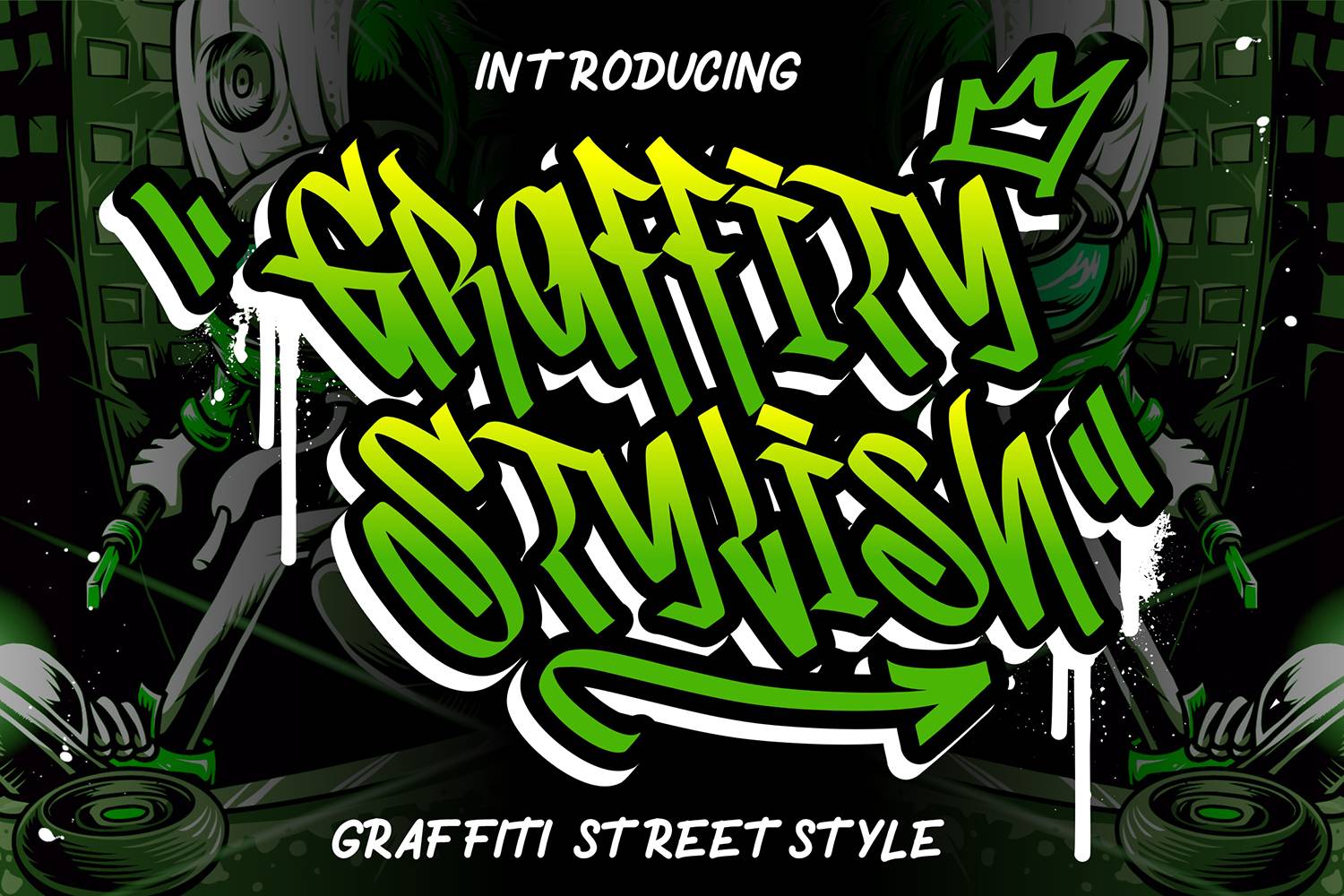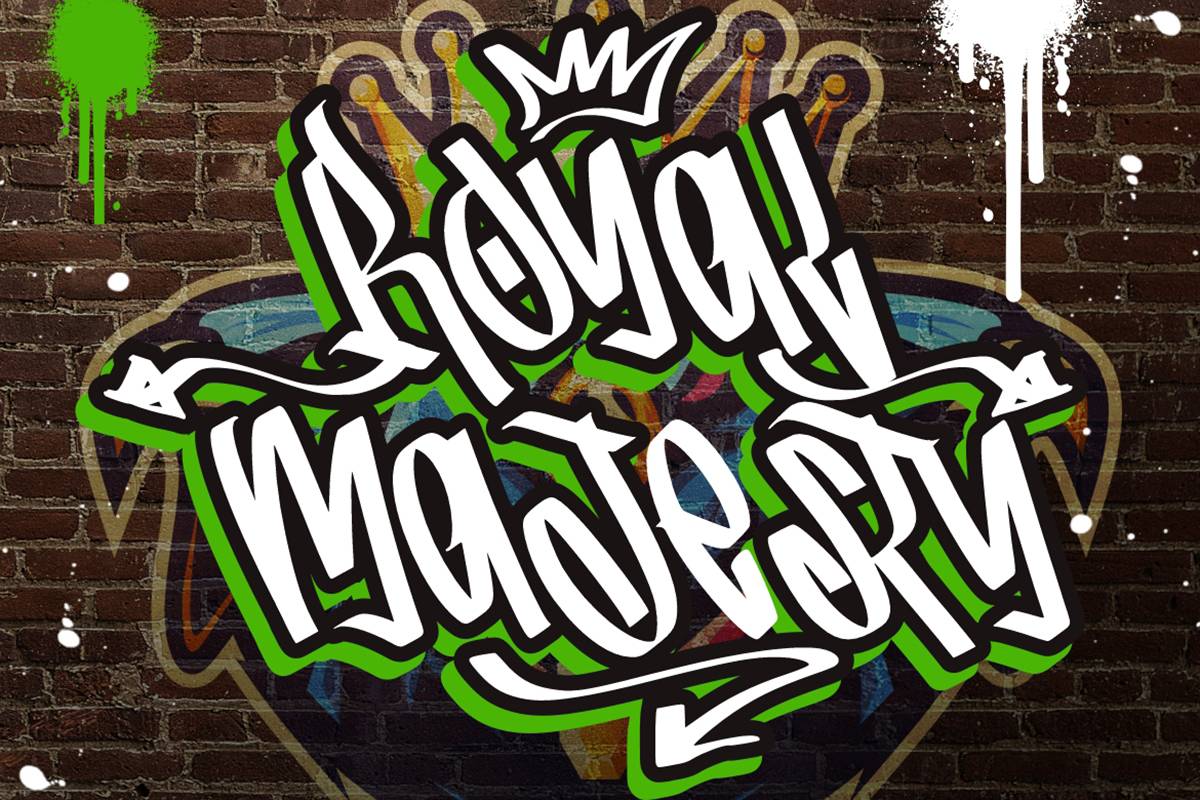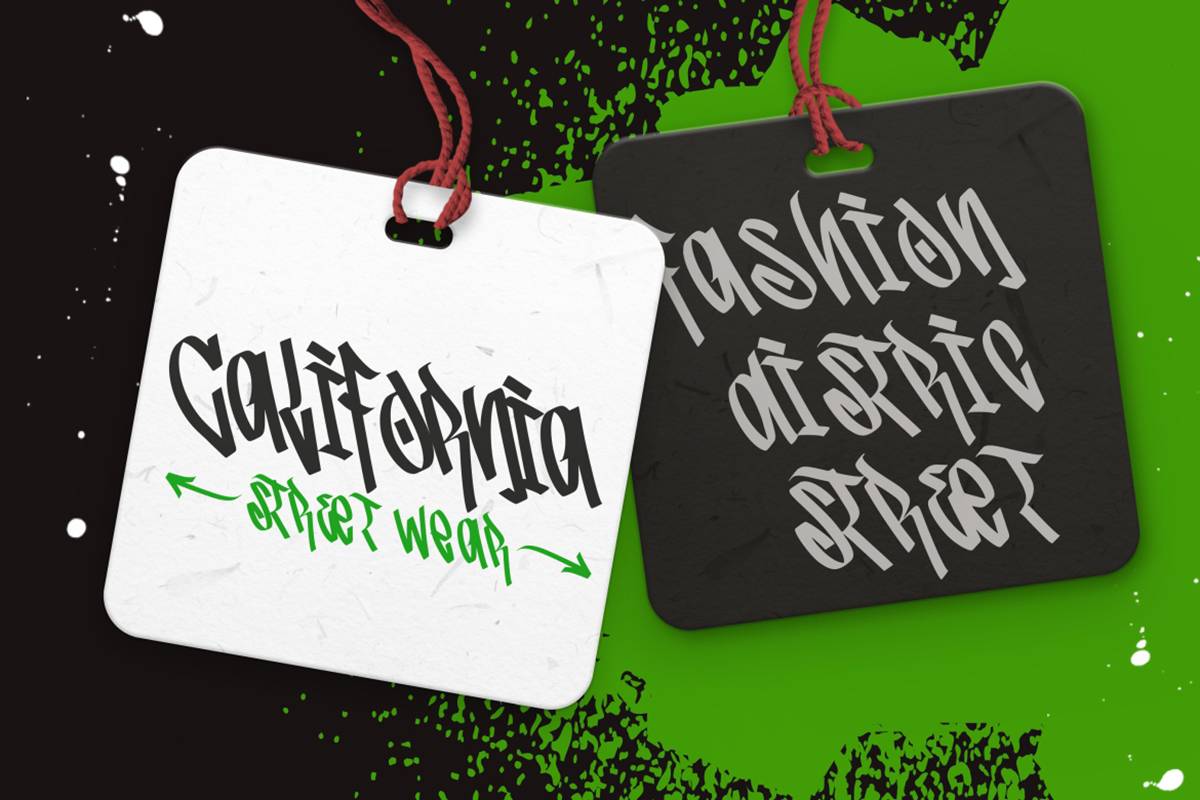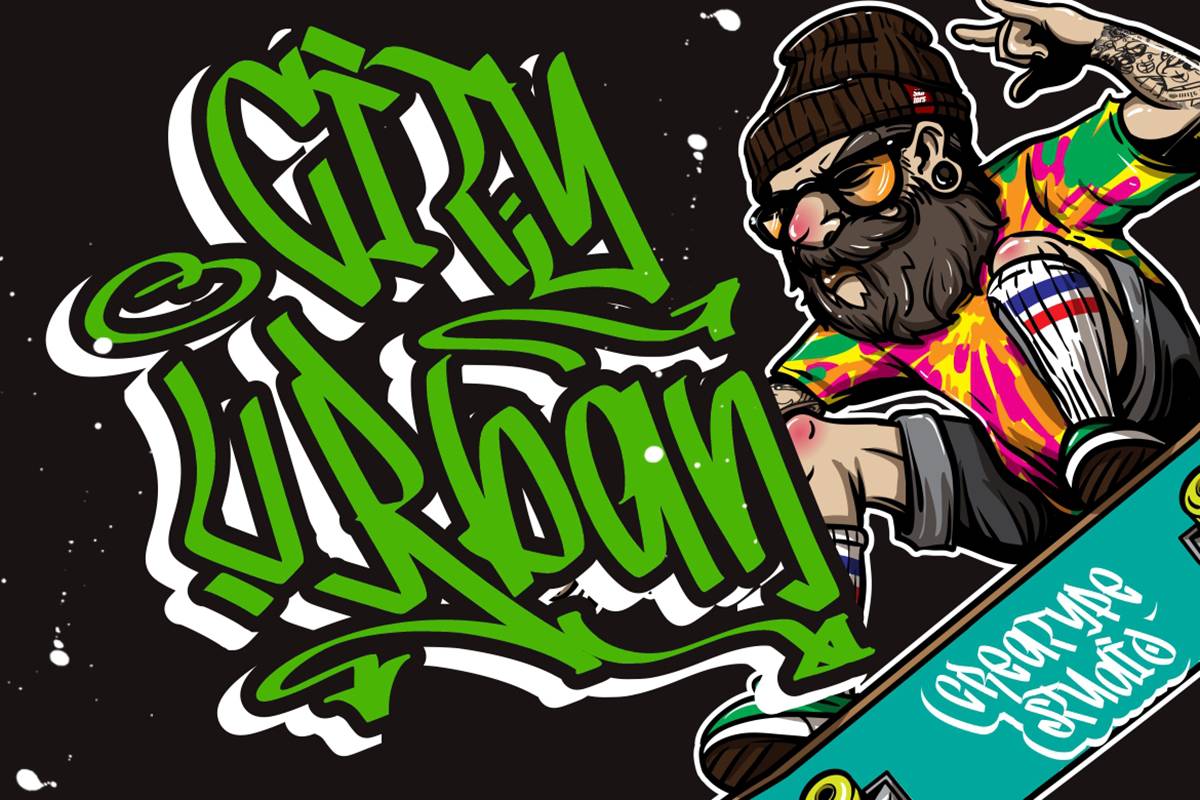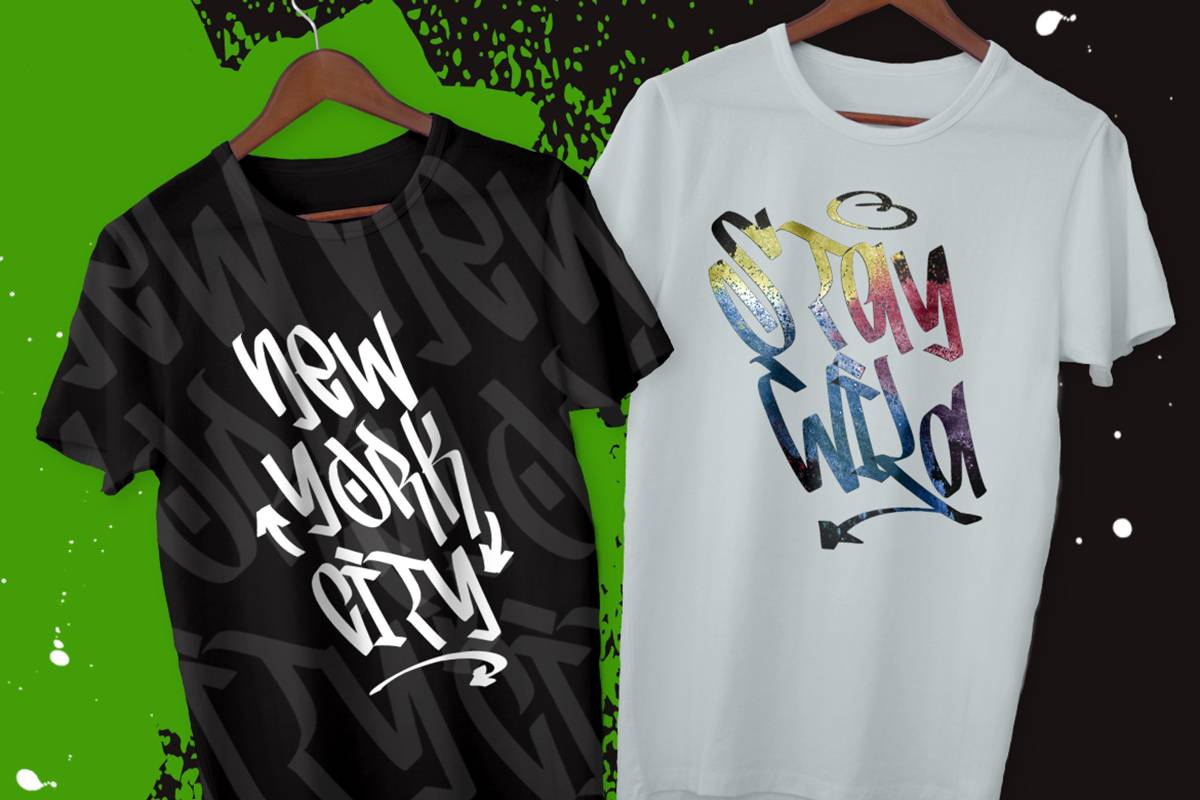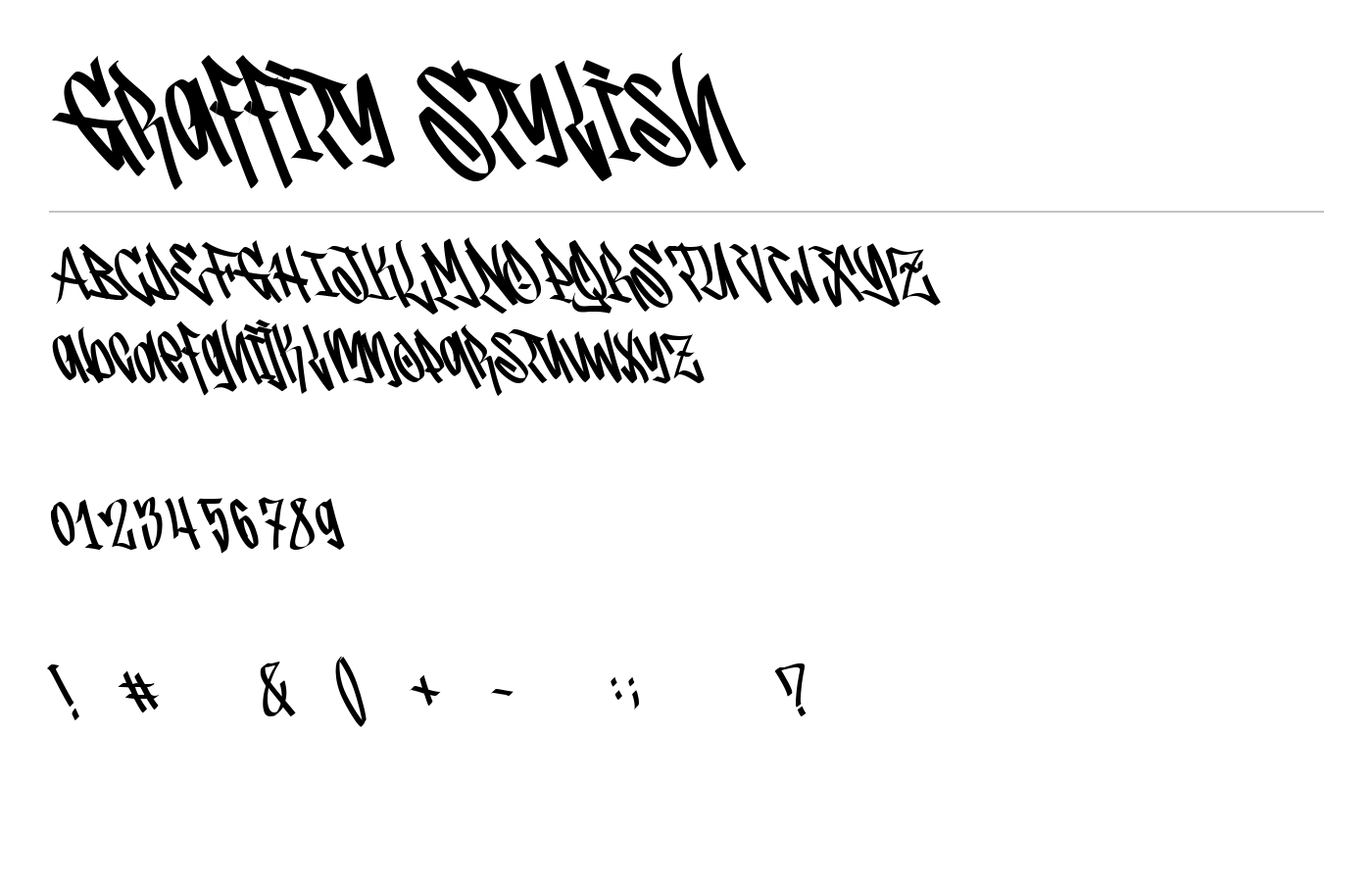
Graffity Stylish Font is a bold, edgy display typeface inspired by urban street graffiti, featuring sharp angles and irregular shapes that create an energetic, rebellious vibe. Its tall, condensed letterforms with high contrast stroke widths give it a raw, dynamic personality ideal for youth-focused designs, music branding, or edgy posters. This font works best in headlines or logos where a strong, distinctive character is needed to stand out.
Graffity Stylish Font
About Graffity Stylish Font